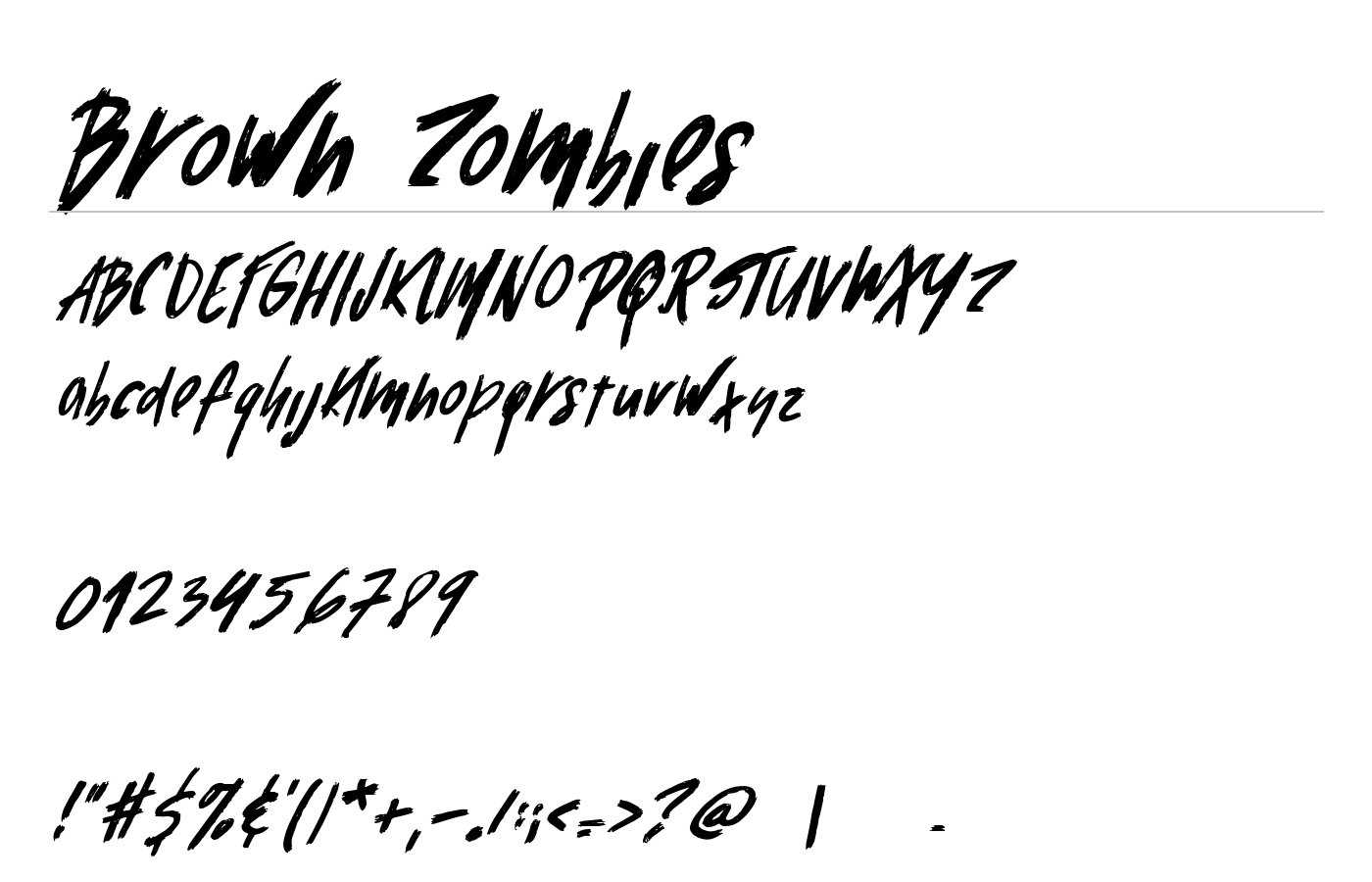
Brown Zombies is a bold, brush-script font with an energetic, hand-painted feel, featuring uneven strokes and a dynamic, slightly aggressive style. Its irregular letterforms and high contrast between thick and thin lines create a sense of urgency and raw creativity, making it ideal for edgy, urban, or horror-themed designs such as posters, logos, and headlines. This font works best where a strong, impactful personality is needed to grab attention and convey a rebellious, artistic mood.
Brown Zombies Font
About Brown Zombies Font
| Font family | Brown Zombies Font |